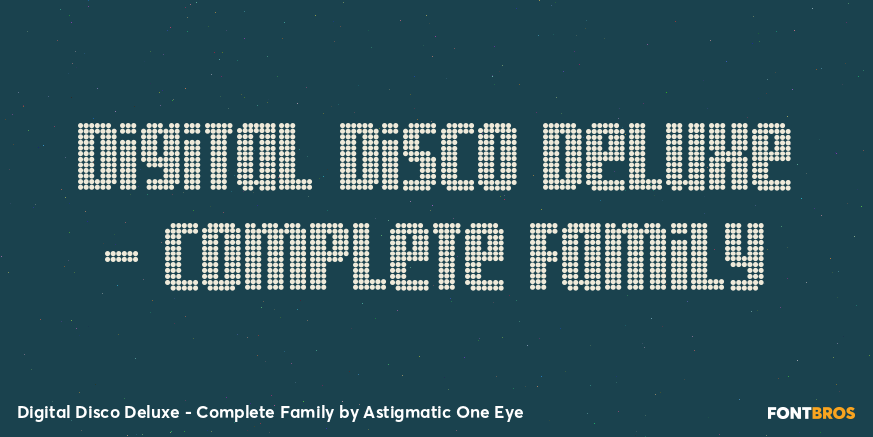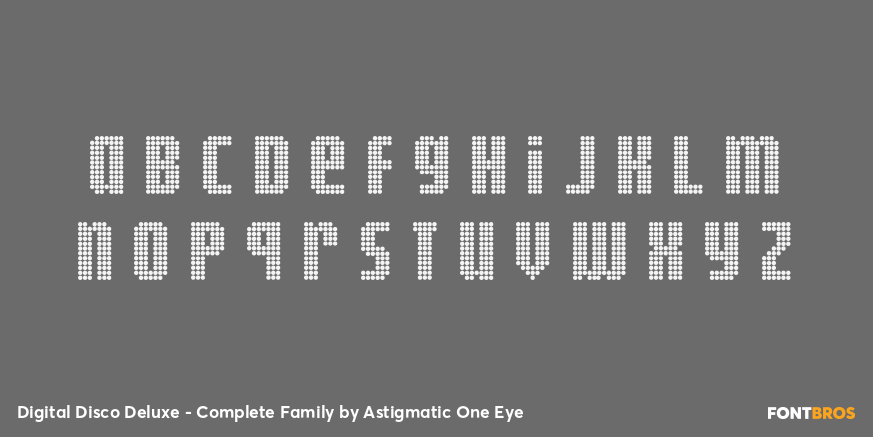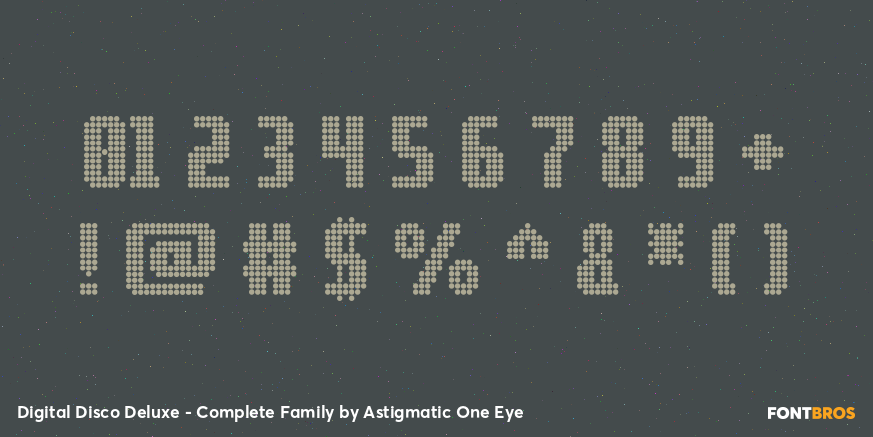
Digital Disco Deluxe - Complete Family
Font Family by Astigmatic One Eye
Inspired by the logotype from the movie "Staying Alive", comes this digital broadway lights style font known as Digital Disco, (ok, so it was really Saturday Night Fever, the Prequel that was Disco). Just look at this typeface and think..."You could be dancing, YEAH!".